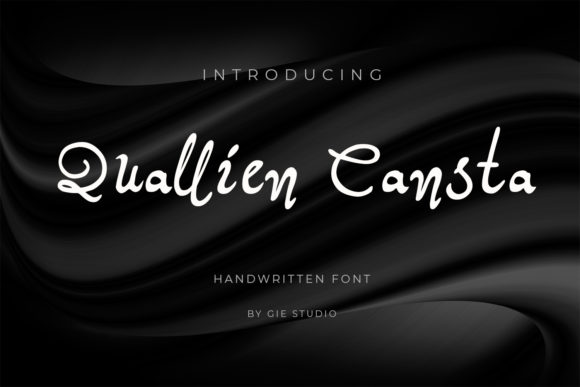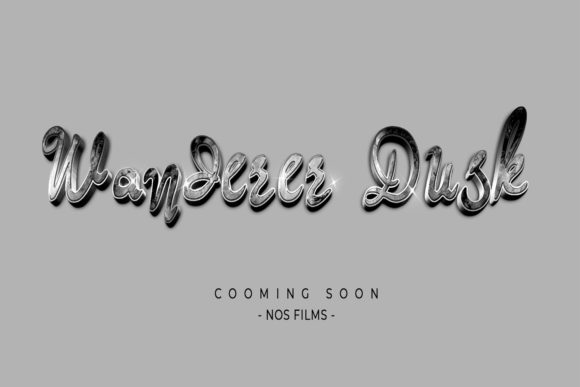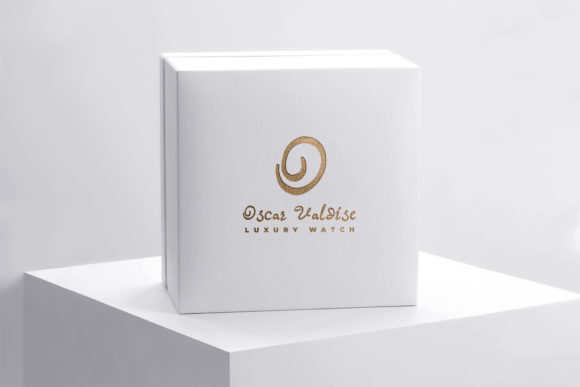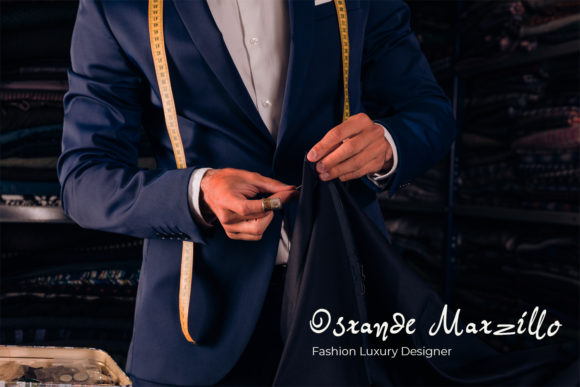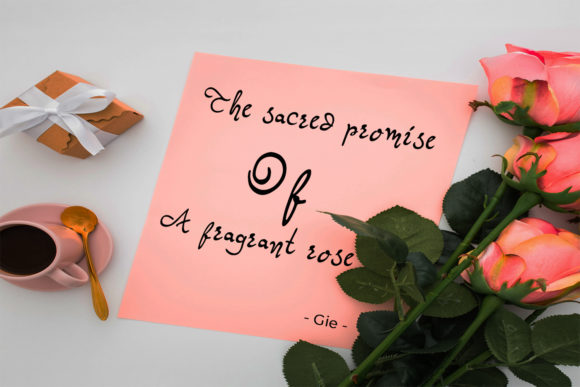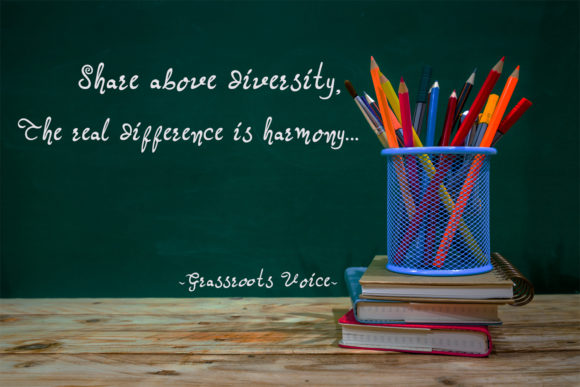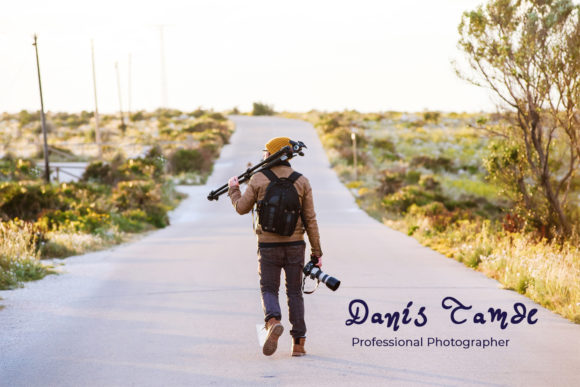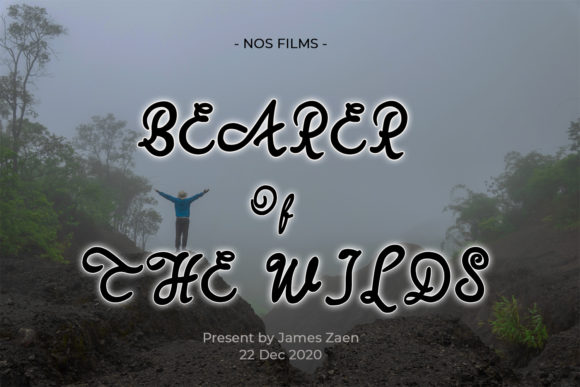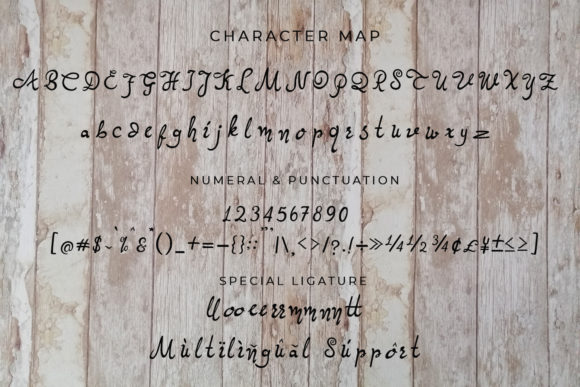
HomeScript FontsQuallien Cansta Font Script Fonts Quallien Cansta Font FacebookXPinterestWhatsApp Quallien Cansta Font Poster 2 Quallien Cansta Font Poster 3 Quallien Cansta Font Poster 4 Quallien Cansta Font Poster 5 Quallien Cansta Font Poster 6 Quallien Cansta Font Poster 7 Quallien Cansta Font Poster 8 Quallien Cansta Font Poster 9 About Quallien Cansta Font Quallien Cansta is a handwritten font. Use it to turn any design project into a masterpiece. DOWNLOAD ON CREATIVE FABRICAThis font is sold and delivered by Creative Fabrica. Font Canyon may earn a commission if you buy through this link. People also explored Kimberly Monogram Font Simple Designer Believe Font Ragnata Font Risalah Font Milloyste Font Chairmate Font Cute Bubbles Font Mecha Joy Font 349 0 TagsQuallien Cansta Font Previous articleAghnesta Trio FontNext articleAneetha Font LEAVE A REPLY Cancel reply Comment: Please enter your comment! Name:* Please enter your name here Email:* You have entered an incorrect email address! Please enter your email address here Website: Save my name, email, and website in this browser for the next time I comment. Personal Use Free BD Spinner Personal Use Free Read more about this font Abberancy Personal Use Free Read more about this font Hubbies Personal Use Free Read more about this font Bashira Personal Use Free Read more about this font BLOG Transform Your Website: Elevate Your Typography with 7 Best Web Font Generators Are you ready to transform your website's typography from ordinary to extraordinary? Great! Today, we're diving into the world of web font generators, which... Best Fonts for T-Shirt Design – Top 2025 Picks Fonts That Capture the Spirit of New York City Elegant Wedding Invitation Fonts – Handwritten & Script Fonts